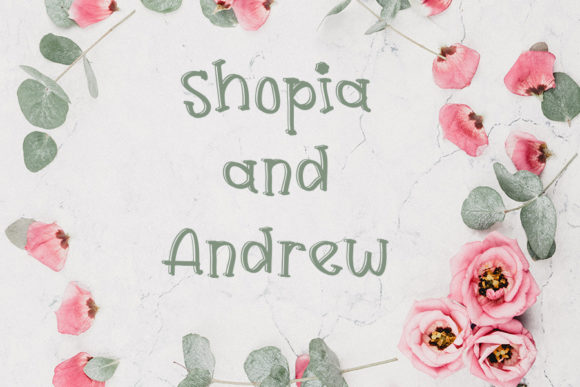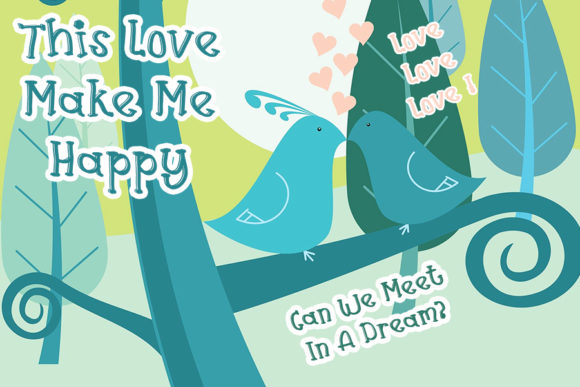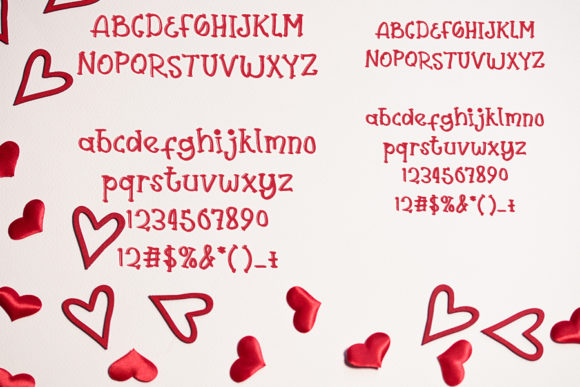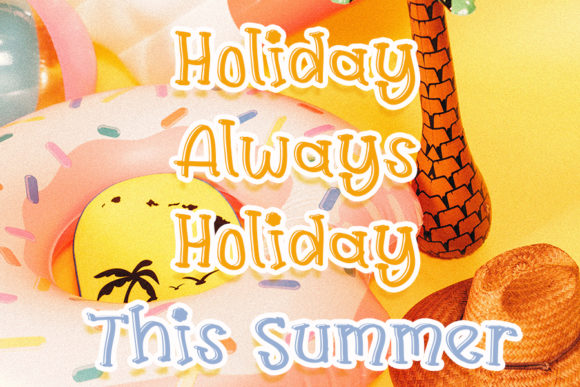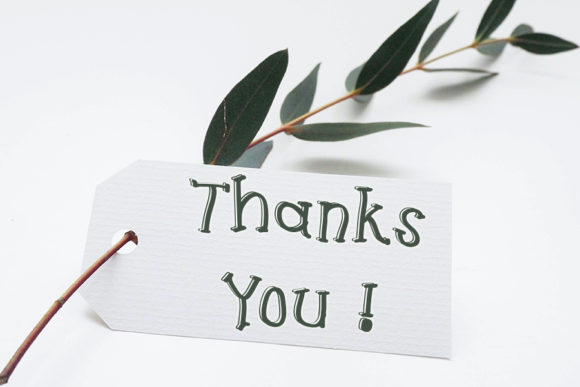
Discover the Timeless Beauty of Handwritten Typography
Do you remember the first time you saw a handwritten note from a loved one, or the way a beautifully crafted wedding invitation made you feel like you were a part of something special? For many of us, the handwritten touch can evoke a sense of warmth, personality, and connection that digital fonts just can’t replicate. That’s where the Bellia Holle Font comes in – a modern and flowing handwritten font that’s perfect for adding a personal touch to your designs.
Bellia Holle Font is a versatile and stylish font that’s ideal for wedding invitations, thank you cards, quotes, greeting cards, logos, business cards, and any other design that needs a handwritten feel. Its elegant and flowing lines make it a valuable asset for designers looking to add a touch of personality to their work. Whether you’re a seasoned pro or just starting out, Bellia Holle Font is sure to become a go-to favorite in your design arsenal.
Bellia Holle Font Key Features
- Unique Characteristics: Bellia Holle features a unique blend of modern and classic design elements, with elegant lines and subtle flourishes that add a touch of sophistication to any text.
Bellia Holle Font Review
Overall, I think the Bellia Holle font is a solid choice for a variety of design projects. ✨ The font’s elegant and refined aesthetic makes it perfect for creating a sophisticated and professional look. The letterforms are well-balanced and harmonious, with a smooth connection between the strokes.
One of the things that really stands out about Bellia Holle is its versatility. ✨ It works well for both body text and headings, and its high x-height makes it easy to read at small sizes. Additionally, the font has a number of different weights and styles, which gives designers a lot of flexibility when it comes to creating custom typography.
- Refined and sophisticated aesthetic
- Well-balanced letterforms
- Smooth connections between strokes
- High x-height for easy readability
- Multiple weights and styles for versatility
- ⚠️ May be too formal for more casual design projects
- ⚠️ Can be difficult to read in certain font sizes or resolutions
Overall, I think the Bellia Holle font is a great choice for designers who need a high-quality, professional font for their projects. While it may have some limitations, its strengths make it a valuable addition to any designer’s toolkit.
Use Bellia Holle Font for:
1. Creative headings and titles.
2. Fashion and lifestyle design projects.
3. Adding a touch of elegance to your designs.